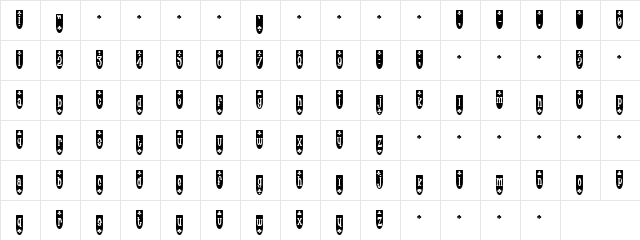
Populuxe Blub Regular Font Preview
Populuxe Blub Regular
Populuxe Blub Regular Font Details
Design Context for Populuxe Blub Typeface
Populuxe Blub is a composed and adaptable typeface that performs quietly and consistently across a wide range of design contexts.